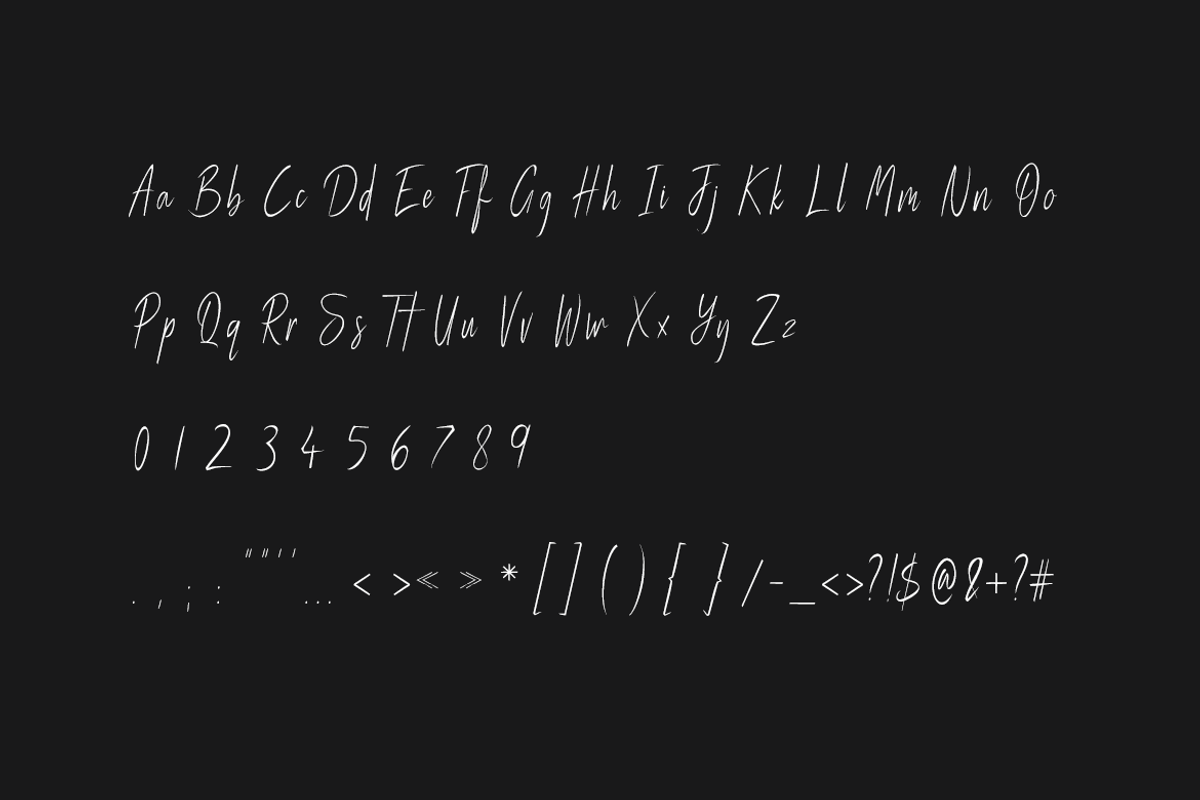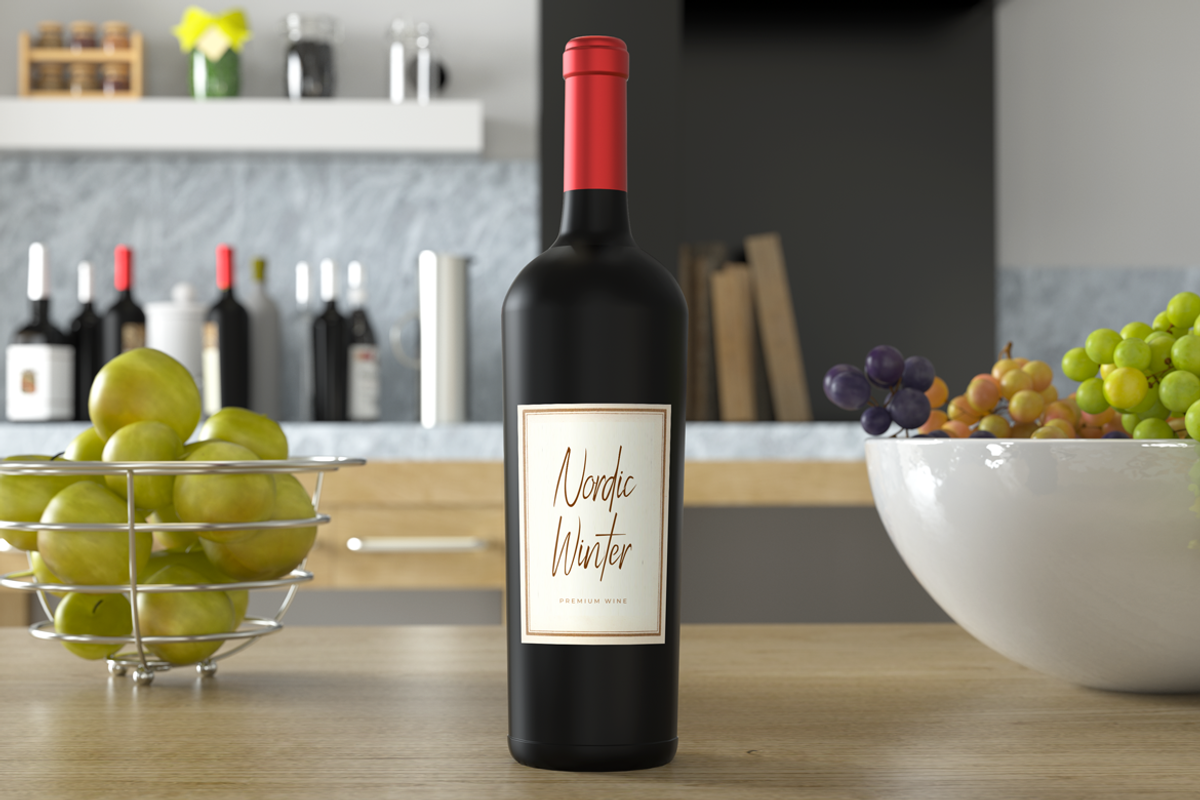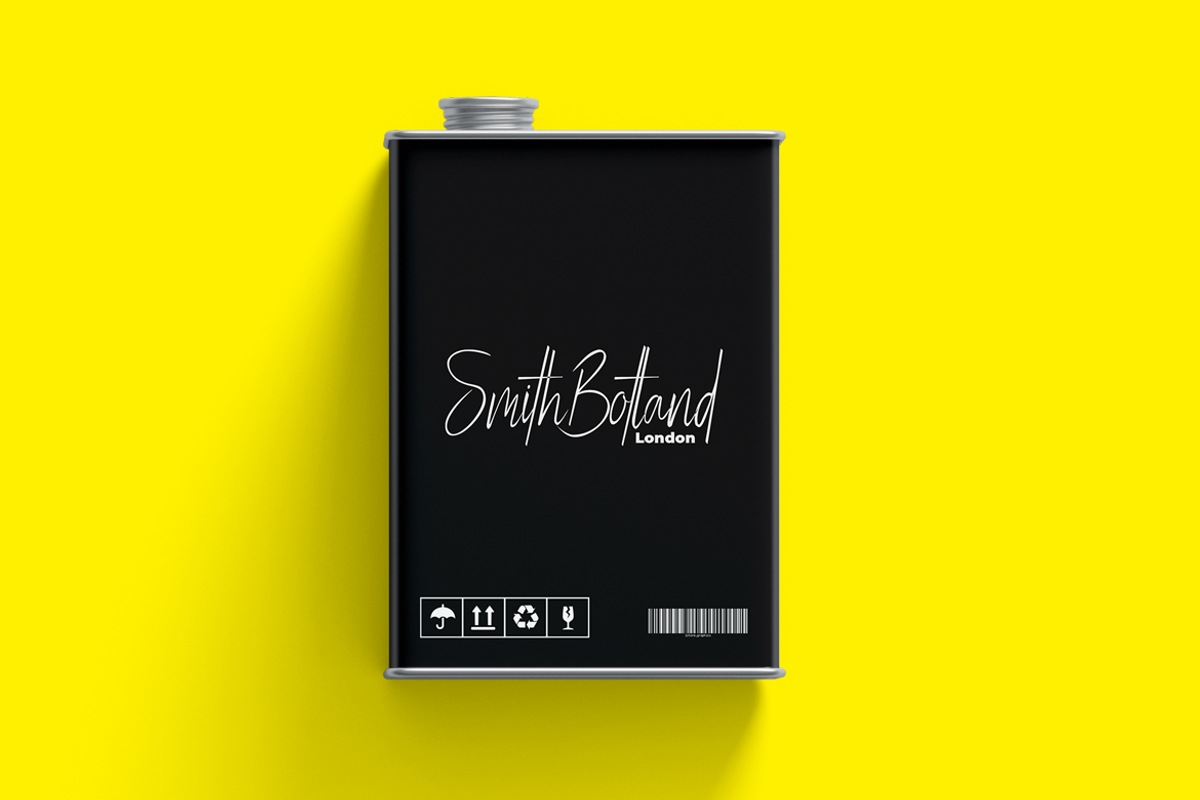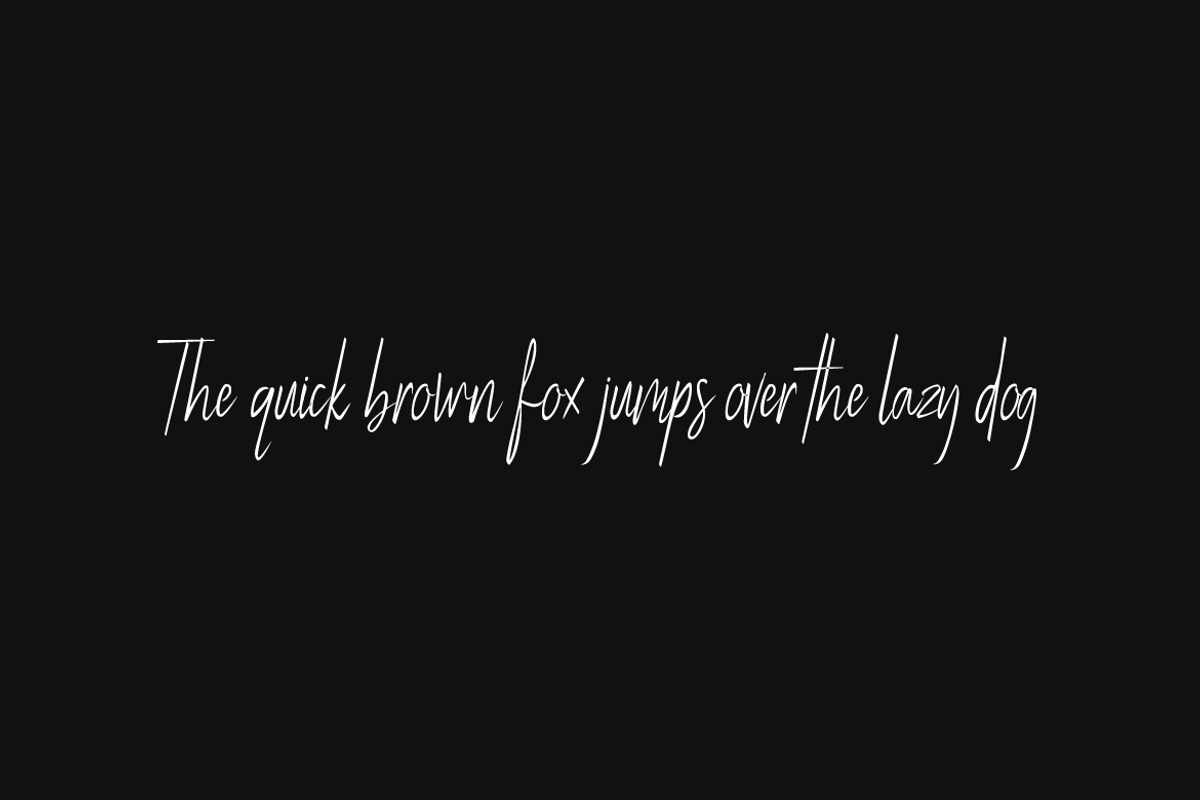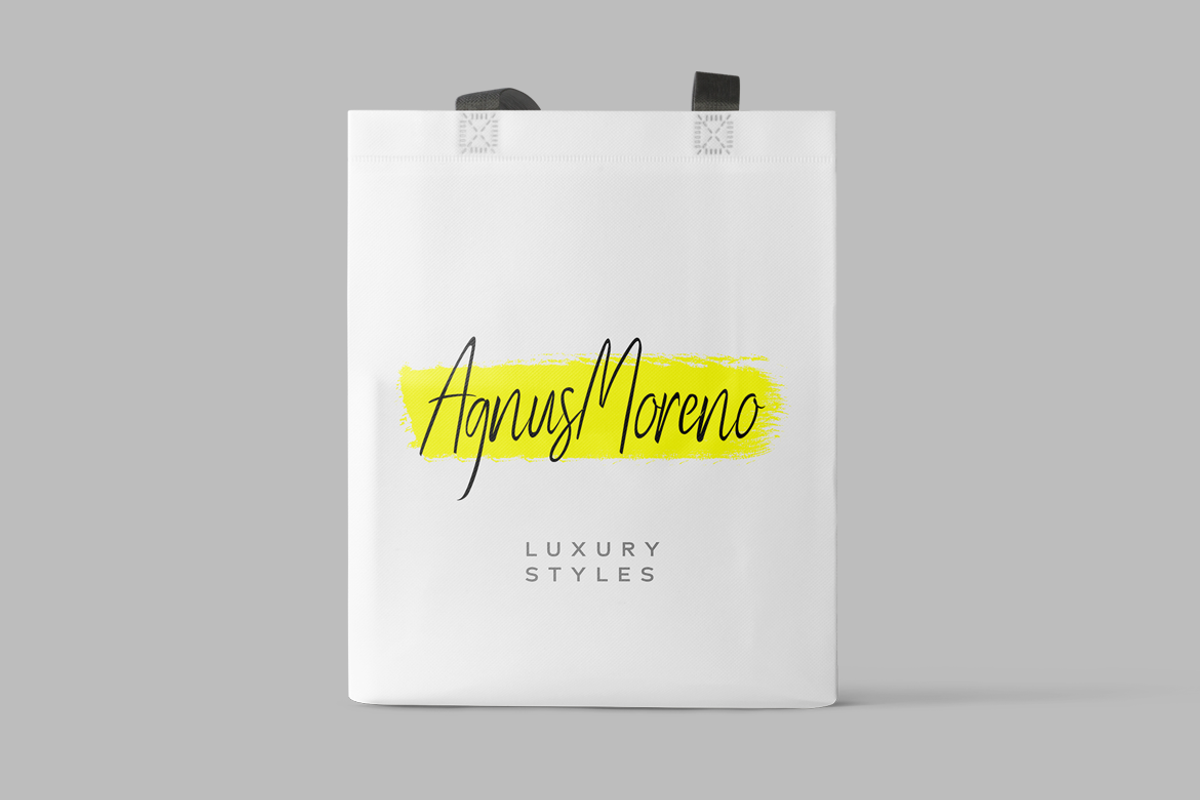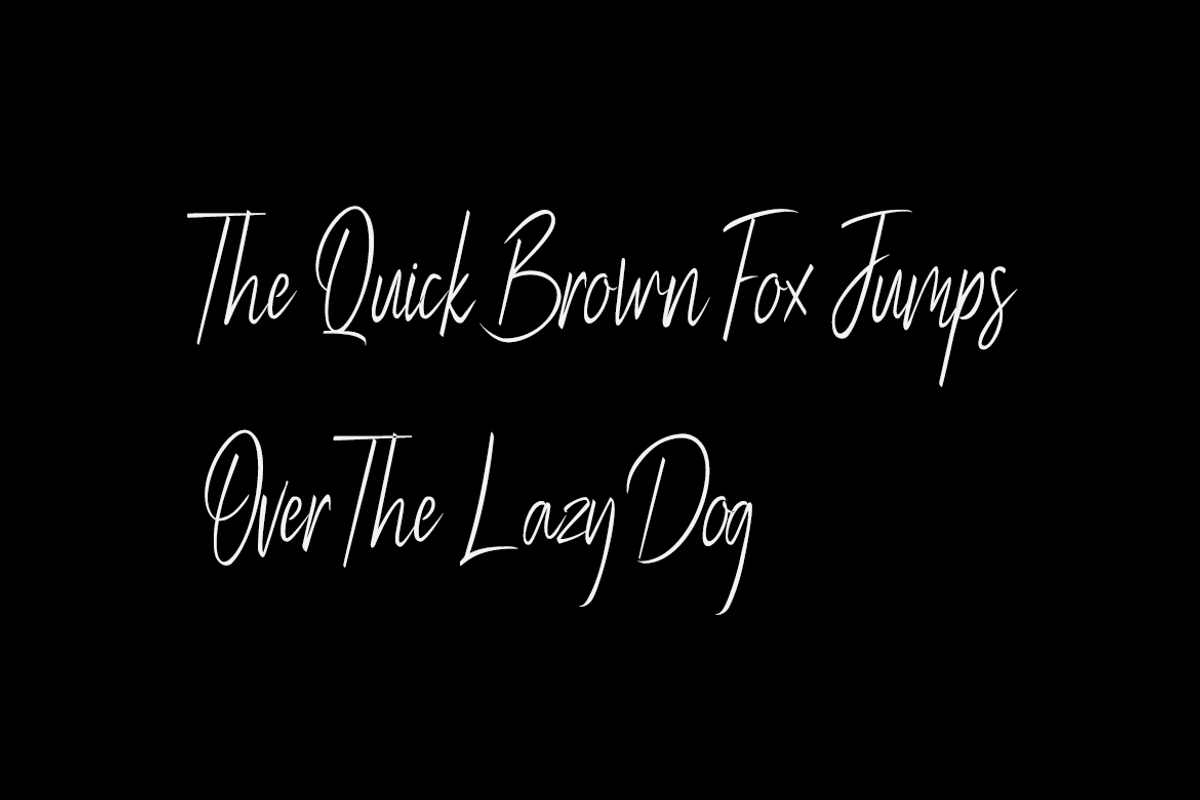
Magnetta - Handwritten Luxury Font
Magnetta is a lovely, beautiful handwritten font for luxury / signature / branding / logotype / wedding invites / greeting cards / promotional graphics. Magnetta is handcrafted with a custom brush, having perfection and aesthetics at it's level best.
We have performed advanced, in-depth kerning to make sure the font looks amazing on all possible letter combinations.
- Advanced Kerning: We have performed advanced, in-depth kerning to make sure the font looks amazing on all possible letter combinations.